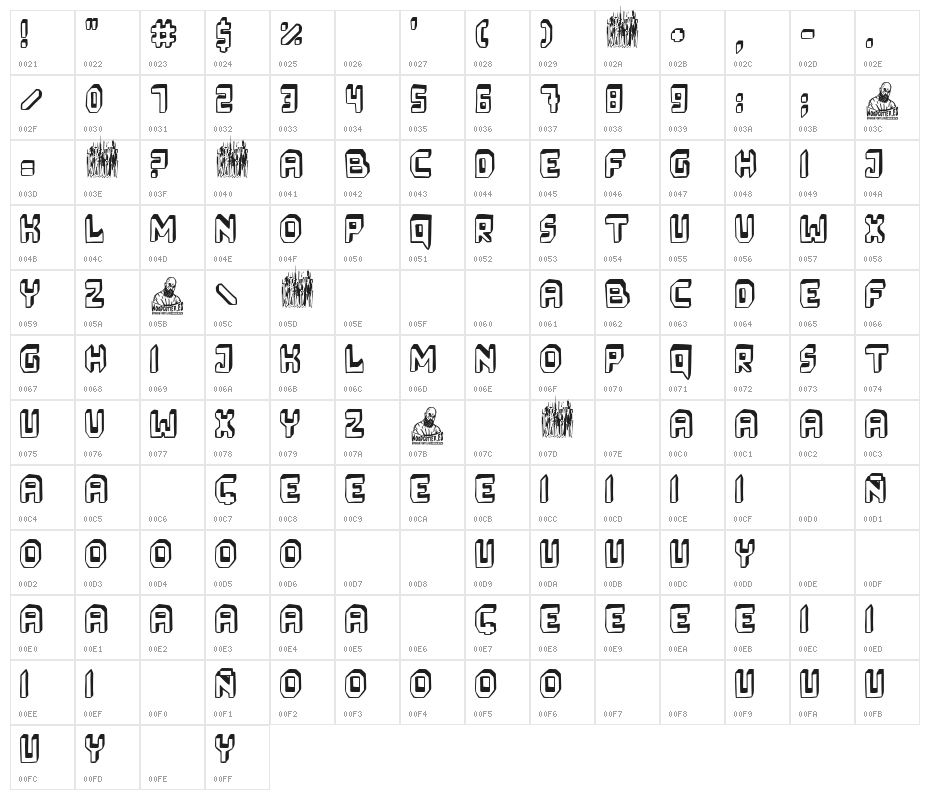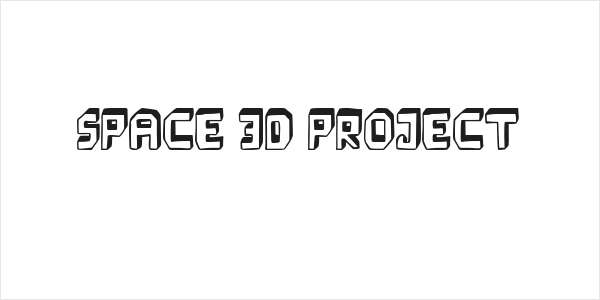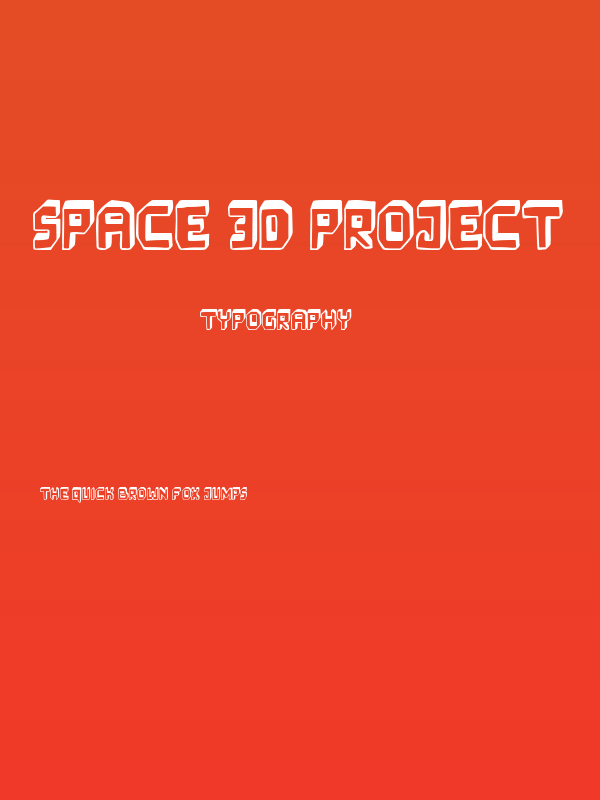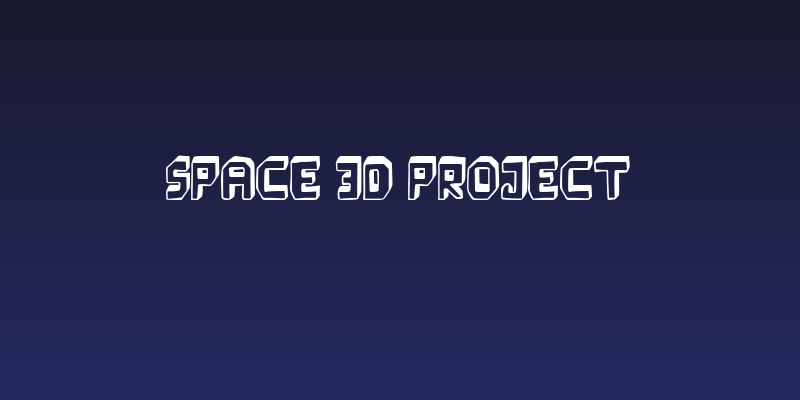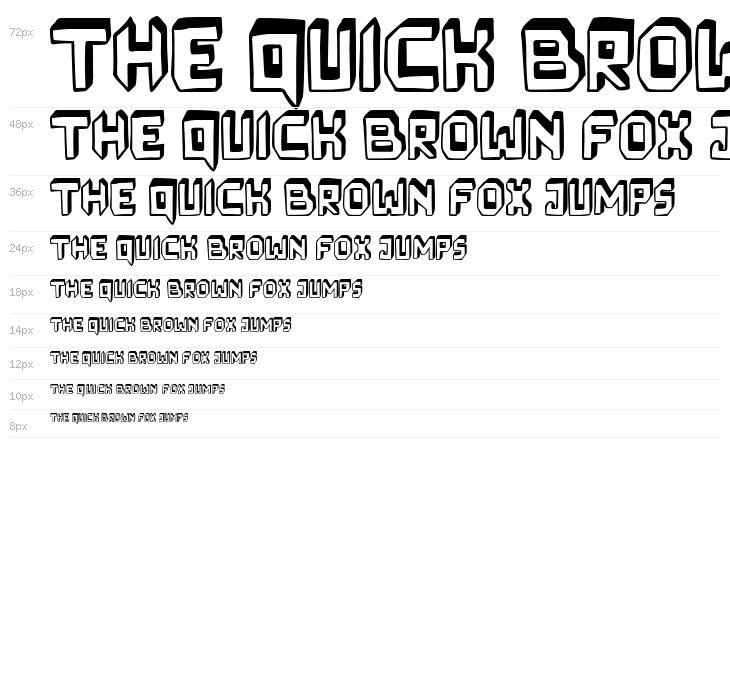
Space 3D Project Font
Space 3D Project Description
A bold, geometric display font with a three-dimensional, outlined effect and angular letterforms, giving a futuristic and playful appearance. The characters are uppercase only, with thick outlines and inner negative space, creating a sense of depth.
| Overall Style | Futuristic, Playful, Decorative |
| Proposed Projects | Posters, video game titles, sci-fi themed graphics, childrenΓ’β¬β’s book covers, event flyers. |